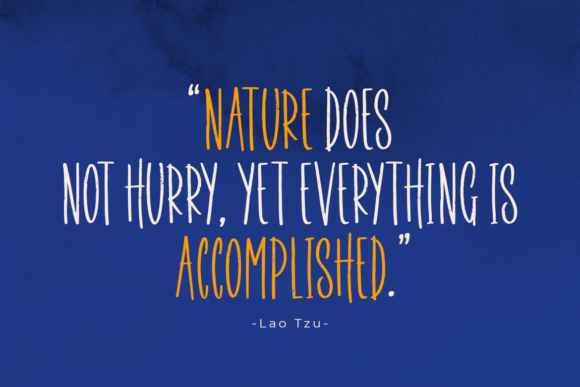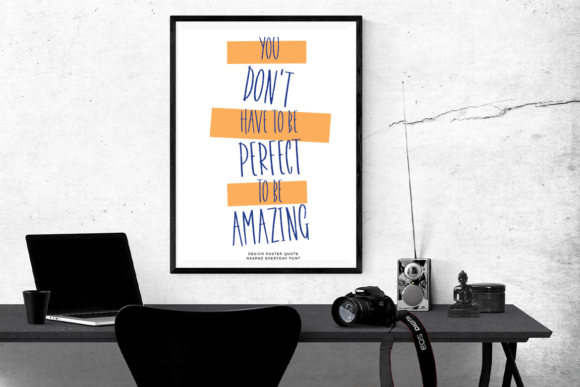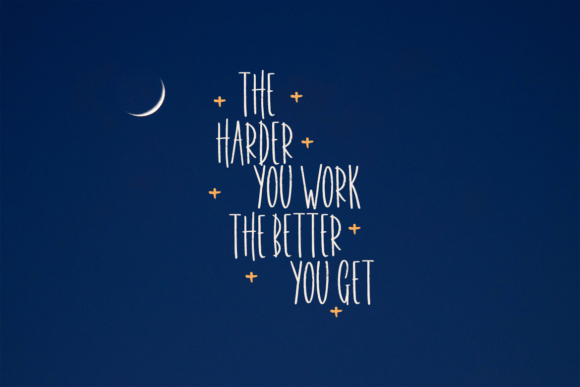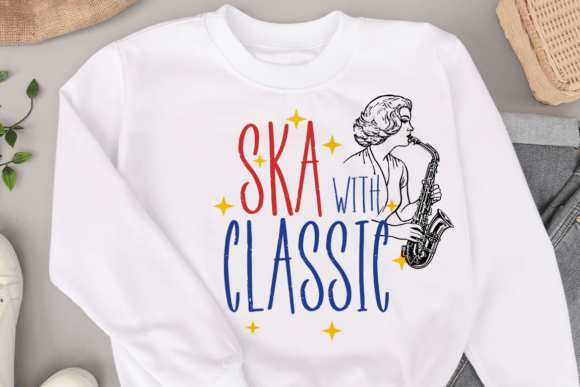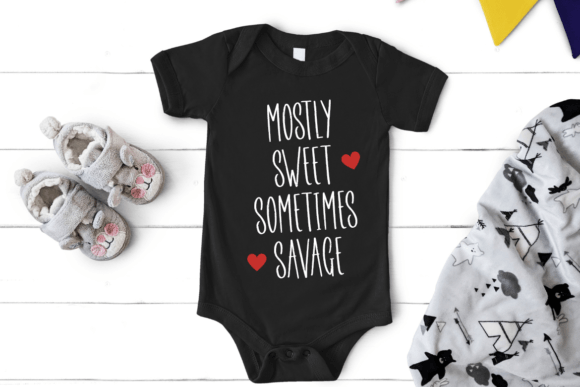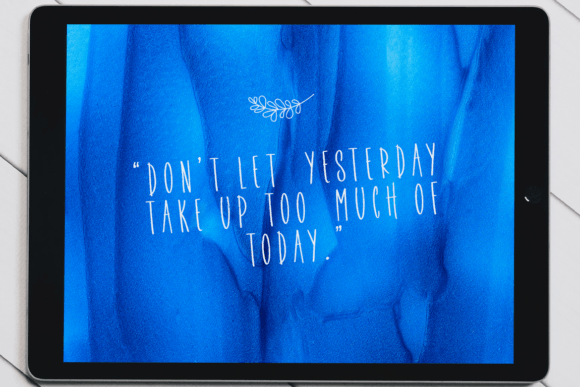
Introduction to Midnight Horrible Font
Have you ever found yourself in the middle of a creative project, staring at a blank canvas, and desperately searching for the perfect font to bring your idea to life? That’s exactly where I was when I stumbled upon the enchanting Midnight Horrible Font. This playful handwritten font is more than just a design element – it’s a game-changer that can elevate your creative project from good to great.
What I love about Midnight Horrible Font is its unique blend of high-quality typography and a transparent background that makes it perfect for any design application. Whether you’re working on a greeting card, a headline, or a social media graphic, this font is sure to add a touch of elegance and sophistication to your work.
Key Features of Midnight Horrible Font
- High-quality font design with a unique, distressed aesthetic, perfect for creative projects that require a touch of edginess.
- Features a transparent background, allowing for seamless integration into various design elements and backgrounds.
- Unique characteristics include a distressed, hand-drawn feel and a range of customizable options for font size, color, and style.
- Perfect for creative projects, such as typography-based art, posters, and social media graphics, where a high-quality, unique font is essential.
Honest Review: Midnight Horrible Font
As a designer, I’m always on the lookout for unique and high-quality design resources to elevate my creative projects. Recently, I had the chance to try out the Midnight Horrible Font, and I must say, it’s been an interesting experience.
- The font has a bold, edgy feel that can add a lot of character to a design. It’s perfect for projects that need a bit of an edgy vibe.
- The transparent background option is a nice touch, allowing designers to easily integrate the font into their designs.
- The font may not be suitable for all types of projects, particularly those that require a more traditional or formal look.
- The font’s edgy feel may not be to everyone’s taste, and some designers may find it too bold or overwhelming.
Overall, I think the Midnight Horrible Font is a solid addition to any designer’s toolkit. While it may not be for every project, it’s definitely a unique and high-quality design resource that can add a lot of creativity to your work. Whether you’re looking for a bold, edgy font or just want to mix things up, the Midnight Horrible Font is definitely worth checking out.
Designing with Midnight Horrible Font
To get the most out of the Midnight Horrible Font, use it on a transparent background to create a striking visual effect. Experiment with different font sizes and colors to add depth and interest to your design. Consider using the font in conjunction with other design resources, such as graphics and textures, to create a unique and eye-catching visual identity.
Midnight Horrible Font is a versatile design resource that can be used in a variety of creative projects, including logos, social media graphics, and marketing materials. It’s also a great option for designers looking to add a touch of edginess to their work.